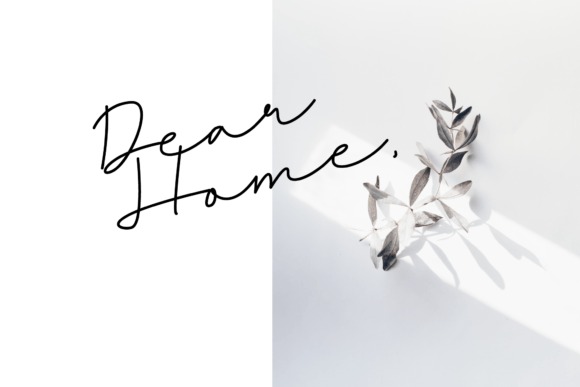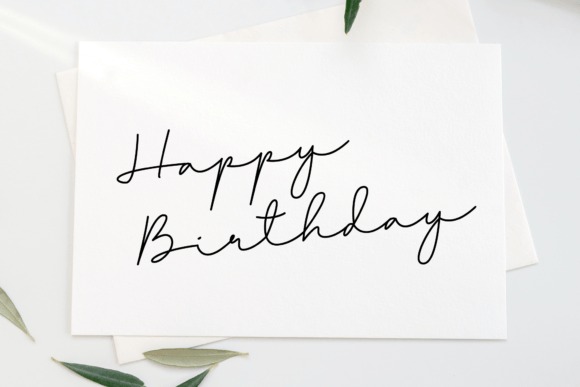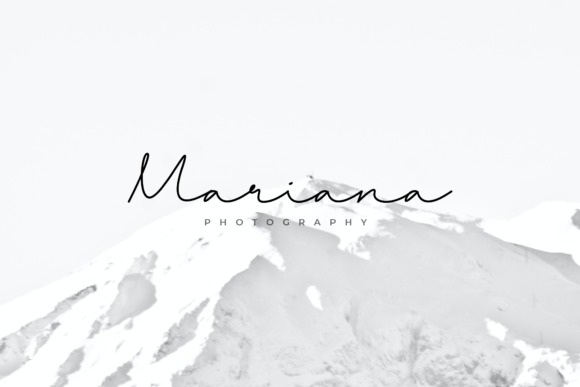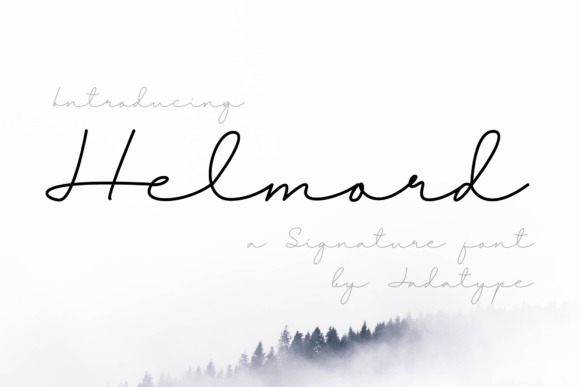
Helmord Font
Helmord Handwritten Font is a lovingly crafted signature script typeface that lends a natural feel to all your designs. It is the best choice for creating eye-catching logos, branding, and quotes. Every letter has a unique and beautiful touch, which will make your design come alive!